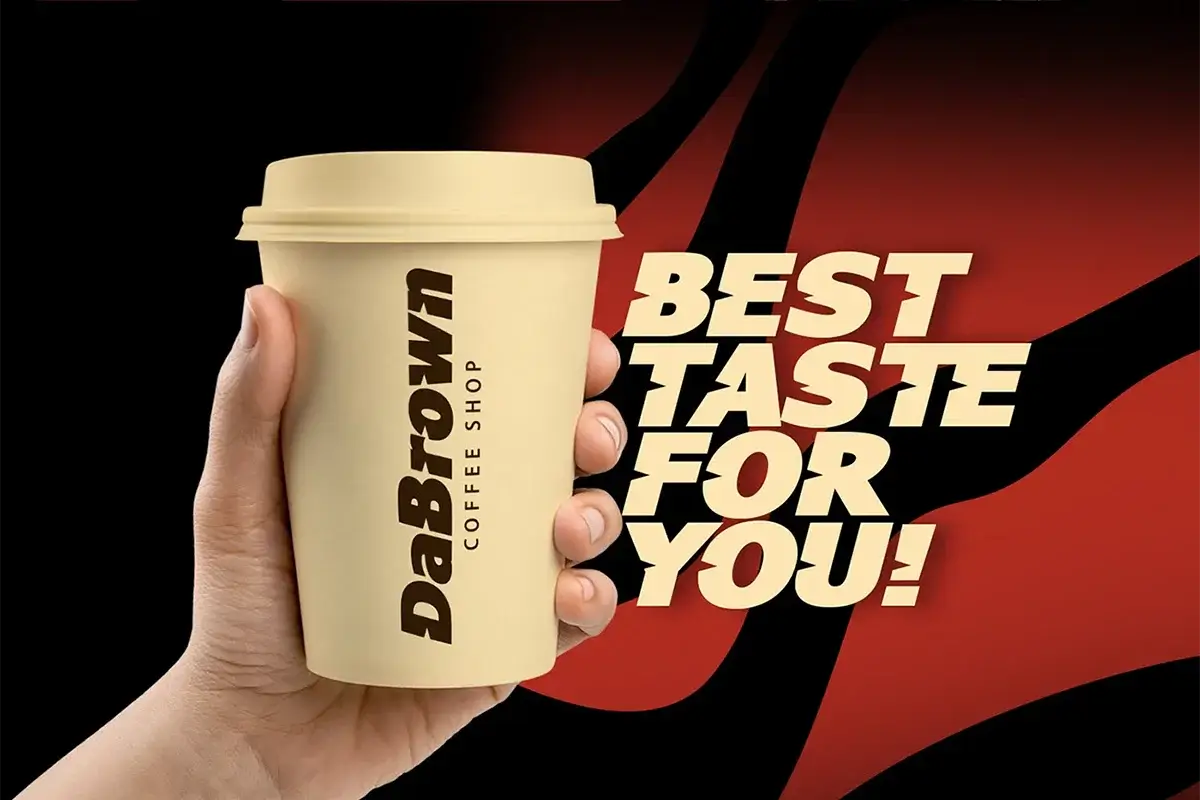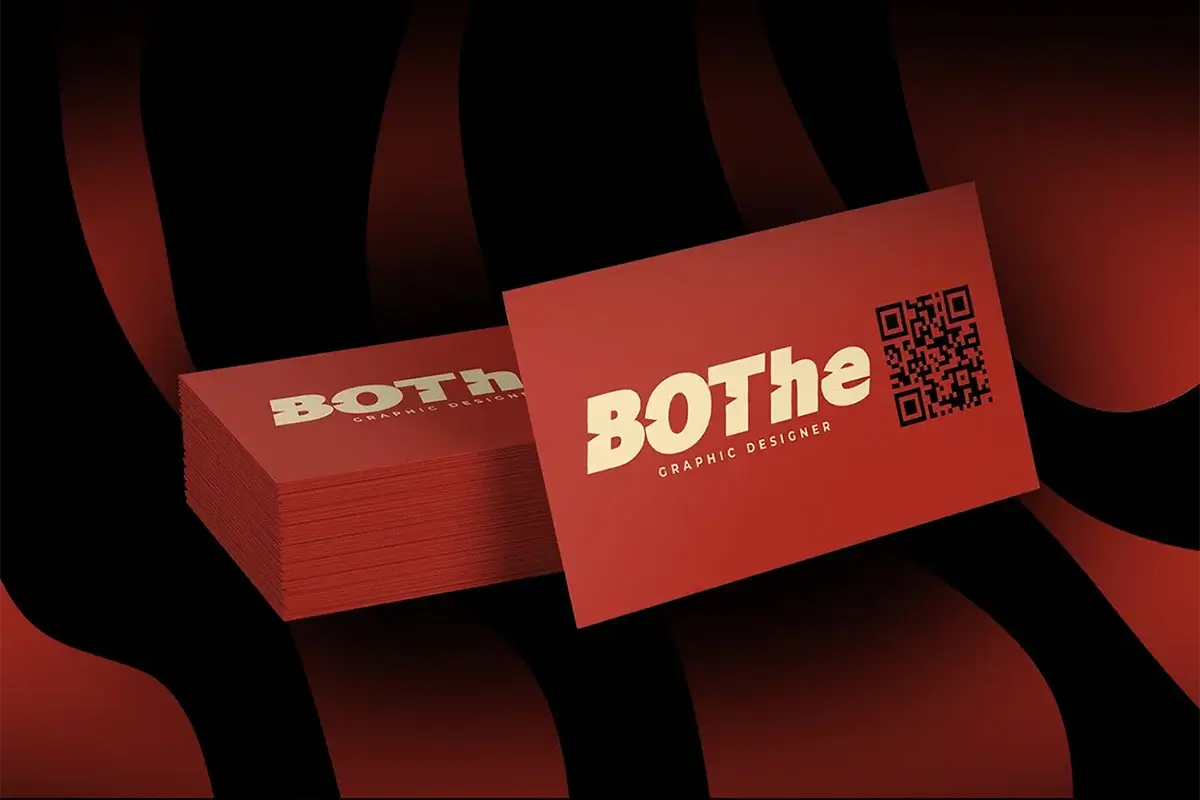
Belix Font
Belix Font is a modern, cool and attractive bold sans serif font created by Khorasan. With thick strokes, sharp cuts and a solid appearance, it is perfect for stand-out designs.
This font has many uses: logos, branding, invitations, posters, wedding invitations, titles, t-shirts, letterheads, signage, labels, badges, subtitles, etc.